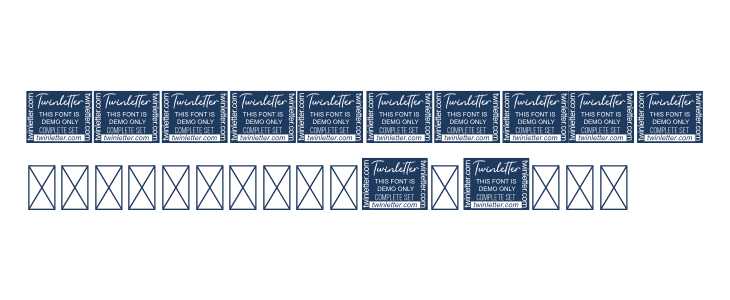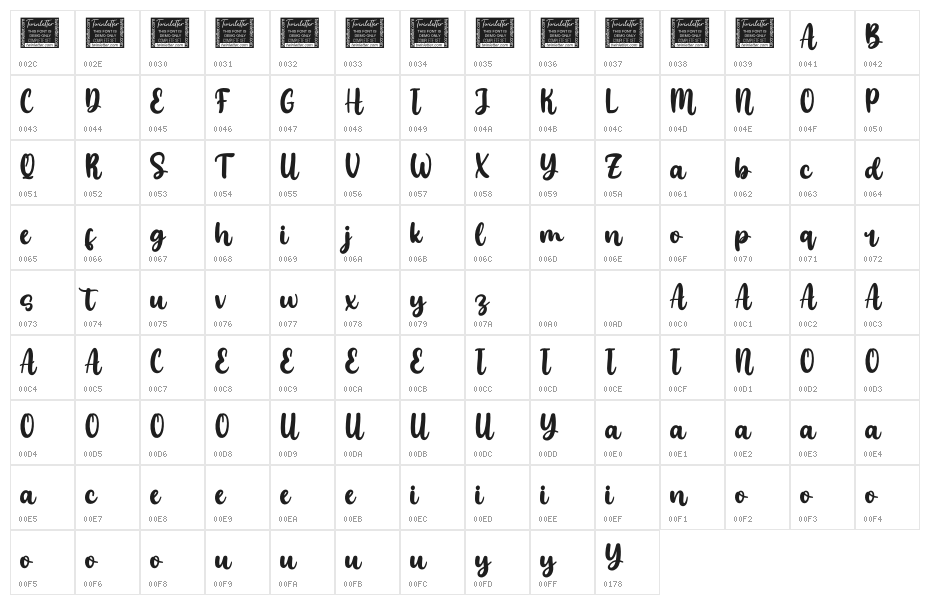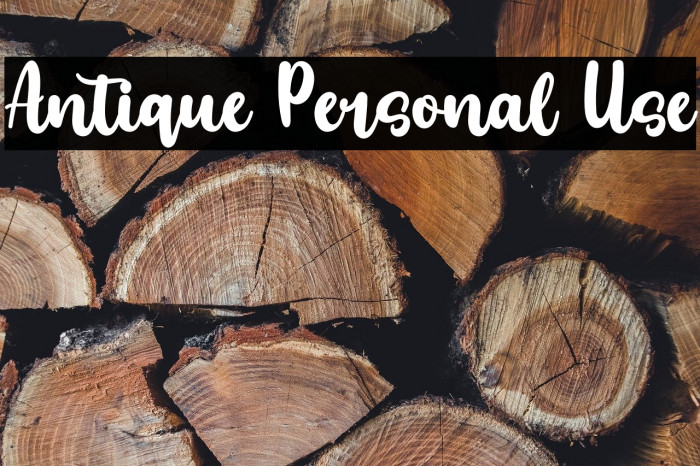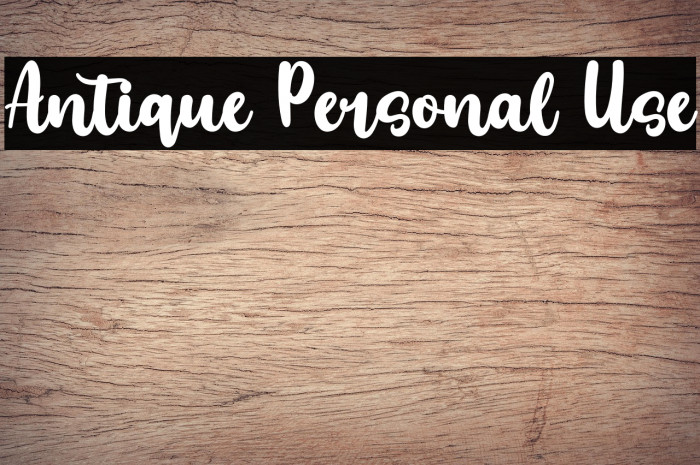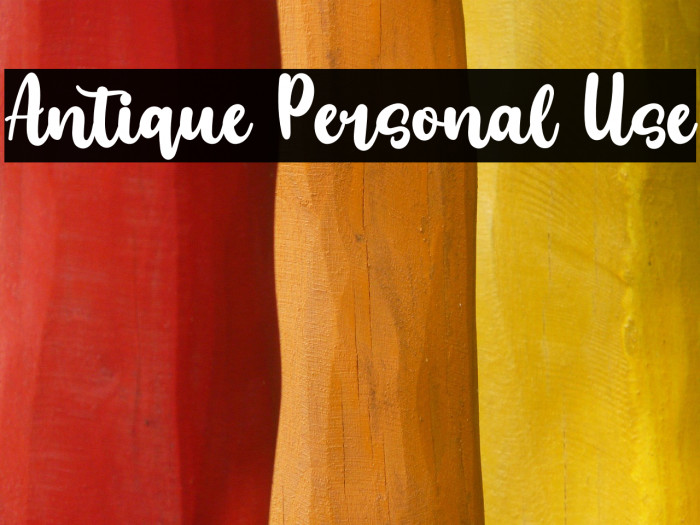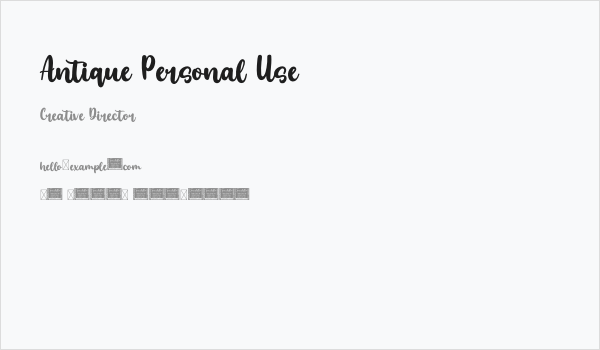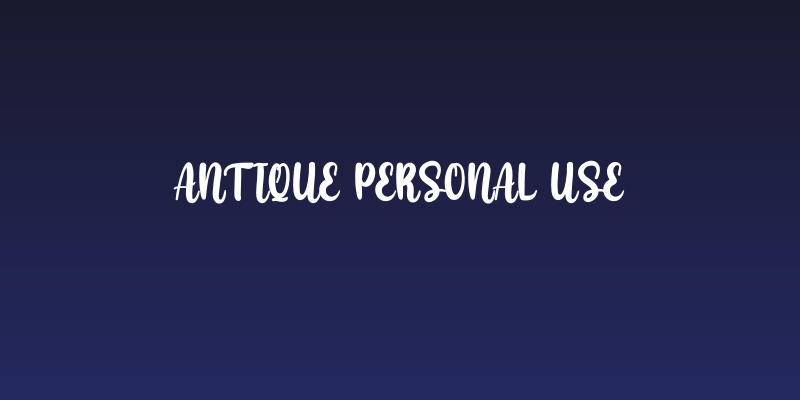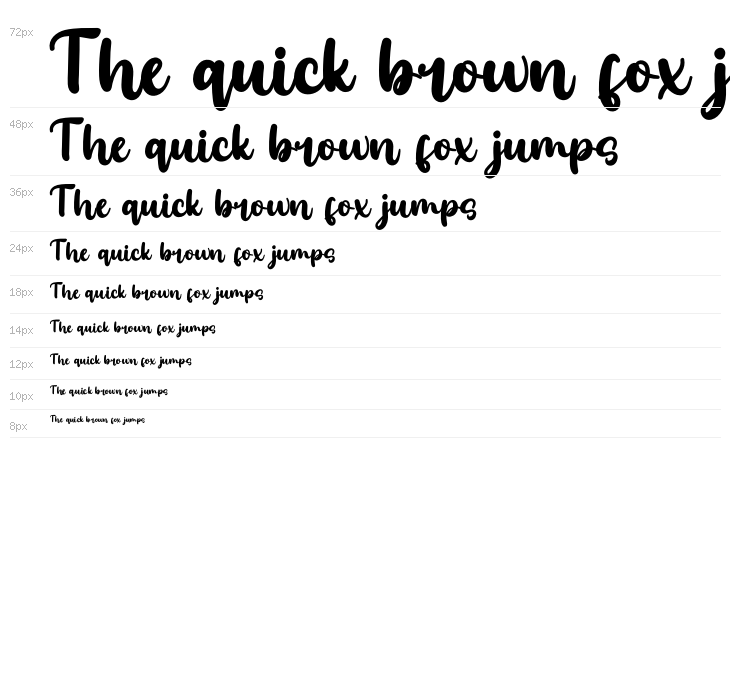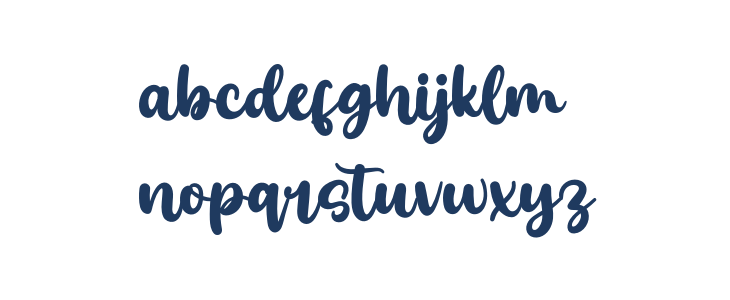
Antique Personal Use Font
Antique Personal Use Description
This font features a bold and expressive script style with a hand-drawn appearance. The uppercase letters are characterized by their sweeping curves and fluid strokes, giving them a dynamic and lively feel. The lowercase letters maintain a consistent flow, with some letters featuring distinctive loops and flourishes. The overall design is cohesive, with a playful yet elegant aesthetic. The numbers and special characters are crafted to match the style of the letters, ensuring uniformity across all glyphs. This font is suitable for projects that require a personal touch, such as invitations, greeting cards, and branding materials.
| Proposed Projects | Ideal for invitations, greeting cards, branding, and any project needing a personal, elegant touch. |